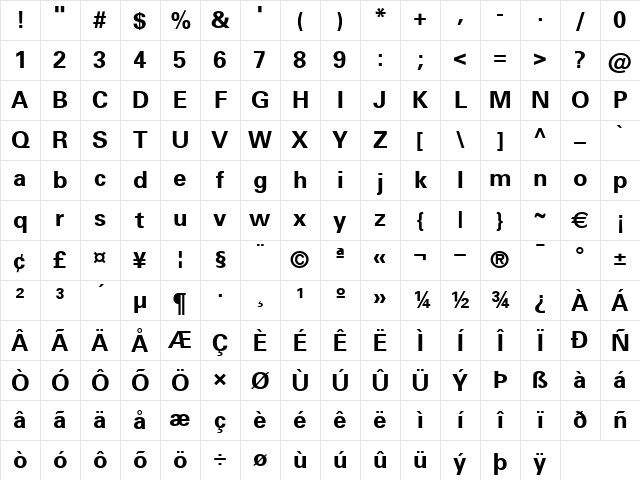
Univers 65 Bold Regular
Complete Univers 65 Bold Regular glyph index. Displaying only characters natively supported by Univers 65 Bold Regular font.
Design Context for Univers 65 Bold
Univers 65 Bold is a composed and adaptable typeface that performs quietly and consistently across a wide range of design contexts. Its bold stroke weight gives it real presence on the page.
Pro Tip: Use Univers 65 Bold in both headline and body roles to test its range before committing to a single application.